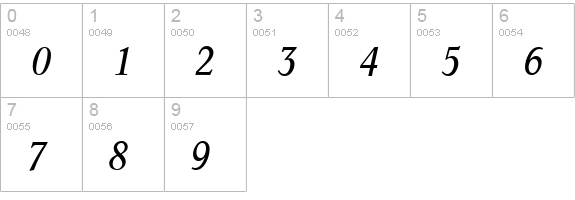
C791-Roman-Italic Font Details
C791-Roman-Italic is a distinctive, italic variant in the C791 typeface family \xE2\x80\x94 well suited to design and typography projects.
C791-Roman-Italic font combines classic elegance with a modern twist, making it a versatile choice for a wide range of design projects. This font features sleek, flowing lines and distinctive serifs that add a touch of sophistication to any text. The italicized style of C791-Roman-Italic brings a sense of dynamism and flair to your typography, making it perfect for adding emphasis or creating a stylish look. Best of all, C791-Roman-Italic is available for free download at FontsMarket.com, making it accessible to all designers and creatives looking to elevate their designs with a touch of timeless sophistication. Whether you're working on a branding project, editorial design, or any other creative endeavor, C791-Roman-Italic is sure to bring a touch of class and style to your work. Download this exquisite font today and elevate your design projects to new heights.